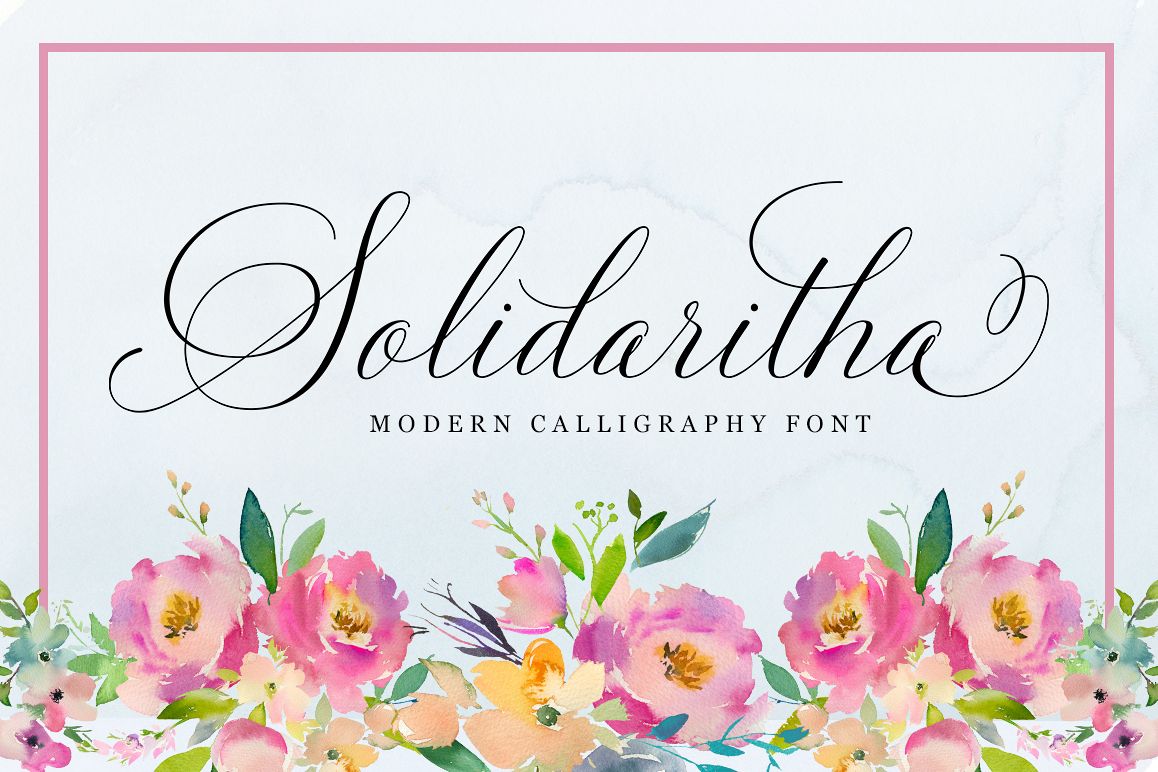
Solidaritha Script
Solidaritha Script is a stylish calligraphy font that features a varying baseline, smooth line, classic and elegant touch. Can be used for various purposes.such as headings, signature, logos, wedding invitation, t-shirt, letterhead, signage, lable, news, posters, badges etc.
Solidaritha Script features 389+ glyphs and 194 alternate characters. including initial and terminal letters, alternates, ligatures and multiple language support.